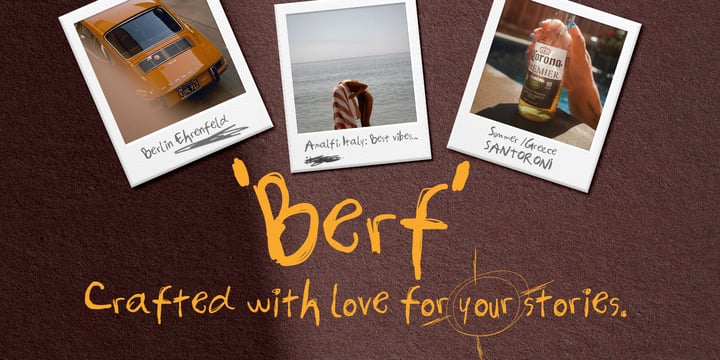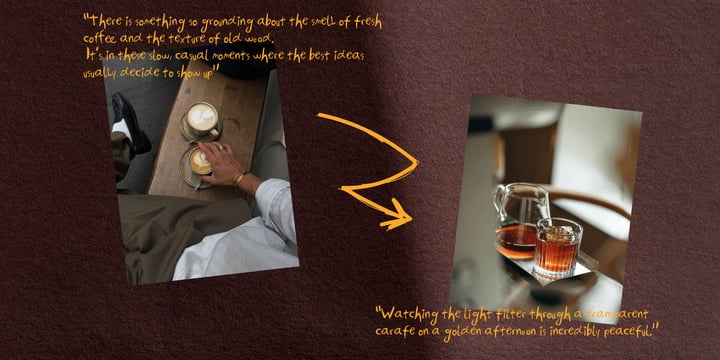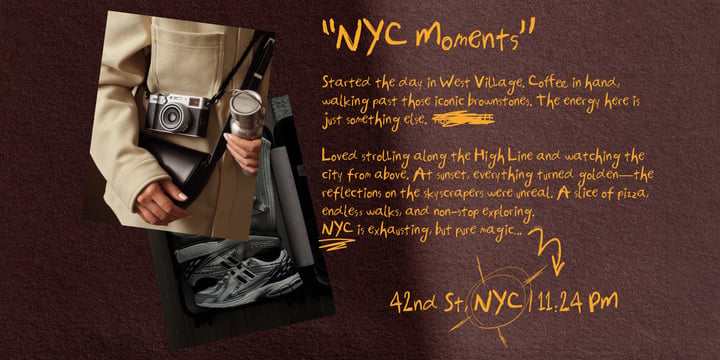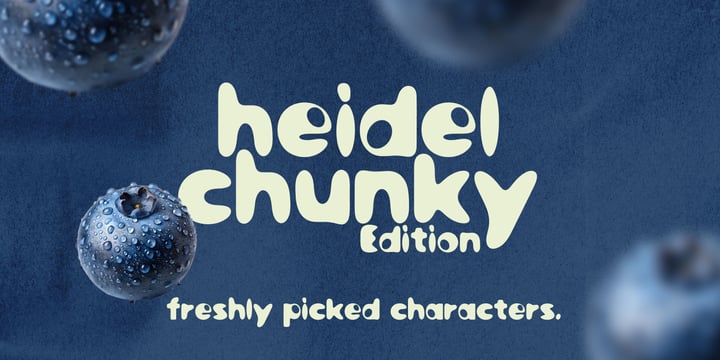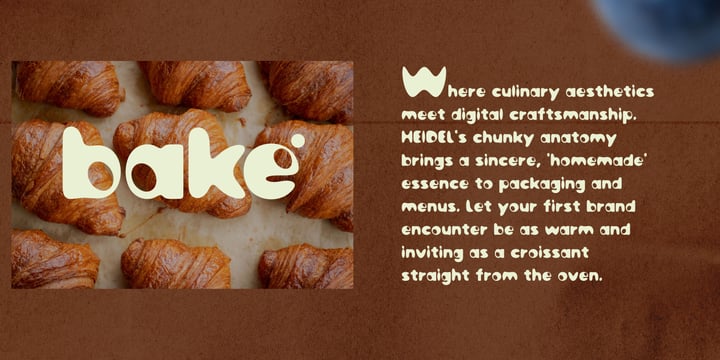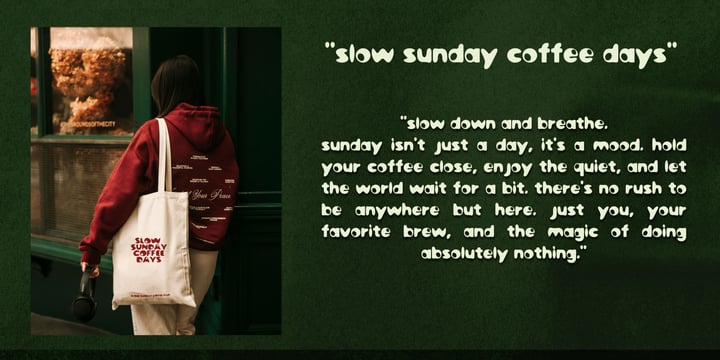
Meriç Akdoğan
Meriç is a Stuttgart-based designer with over 13 years of experience in the advertising industry. After a career as a creative director, he founded Mmx Studio to focus on high-end typography. His design philosophy is centered on an avant-garde approach: reinterpreting familiar forms to create bold and unexpected visual impact. By balancing this experimental vision with rigorous technical precision, Meriç crafts unique display typefaces and character-rich scripts designed specifically for modern filmmakers, brands, and editorial designers.